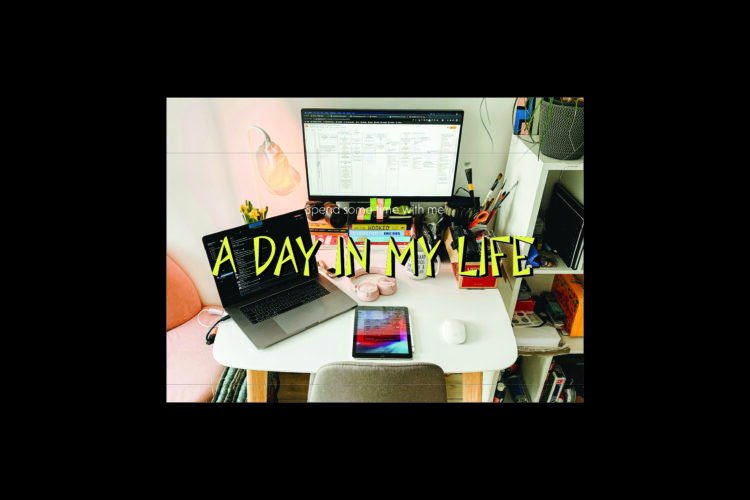
Introducing Fuel, a high-energy street font inspired by the raw power of punk and graffiti. Handcrafted with unique, bold characters, Fuel is perfect for adding an edgy, rebellious vibe to your designs.
Uppercase and lowercase letters, numbers, and basic punctuation
Perfect for: magazine headlines, thumbnails, posters, clothing, branding, logos, and more